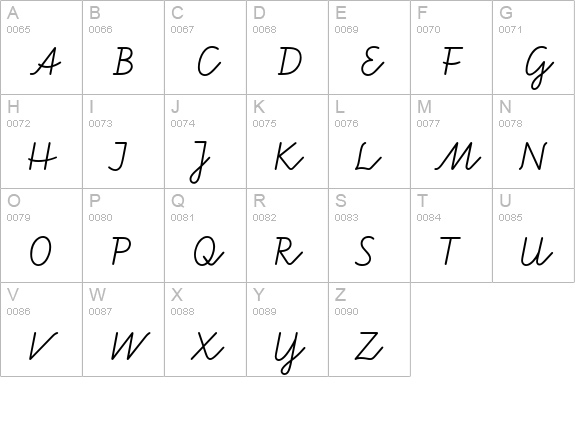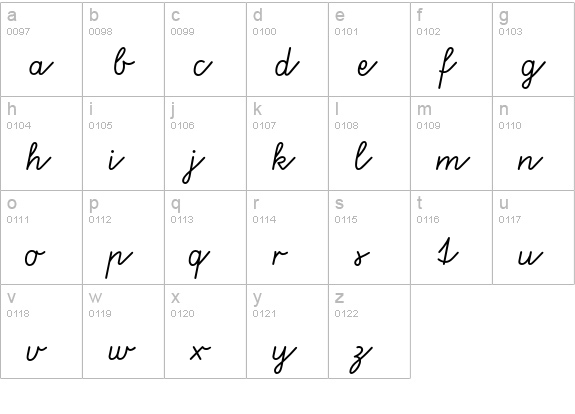
Vereinfachte Lateinische Ausgangsschrift Version 2 Font Details
Vereinfachte Lateinische Ausgangsschrift Version 2 font is a beautifully designed typeface that combines the elegance of Latin script with simplified letterforms. It is a versatile font that is suitable for a wide range of applications, including signage, branding, editorial design, and more. This font features clean lines and a modern aesthetic, making it a perfect choice for both digital and print projects. Its legibility and readability ensure that your message will be conveyed effortlessly to your audience. What sets Vereinfachte Lateinische Ausgangsschrift Version 2 font apart is that it is freely available to download at FontsMarket.com. This means that you can enhance your designs without any additional costs. Whether you are a professional designer or a hobbyist, this font offers you the opportunity to create stunning visuals without breaking the bank. Furthermore, this font is easy to install and use, making it accessible to designers of all skill levels. Its wide range of characters and glyphs allow you to express your creativity and add a unique touch to your designs. Don't miss out on the chance to elevate your design projects with Vereinfachte Lateinische Ausgangsschrift Version 2 font. Download it for free at FontsMarket.com and let your creativity shine.